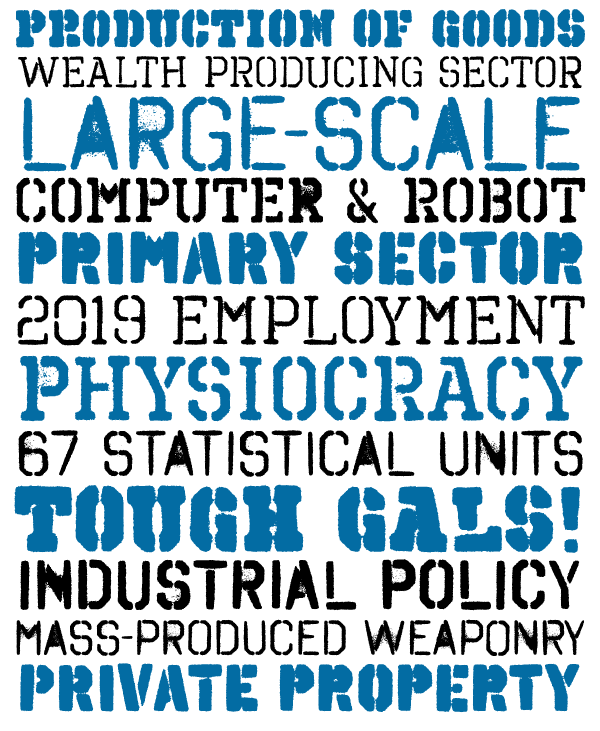
Octin Spraypaint is a tough headliner in 2 styles (sans & serif) & 3 weights: regular, bold & black. Octin Spraypaint is perfect for police, sports, prison, construction, school or military themes. Check out the rest of the Octin families: Octin Sports, Octin College, Octin Prison, Octin Stencil & Octin Vintage. This font includes a license that allows free commercial use: sometimes referred to as a desktop license. This allows you to install the font on a computer and use it to create posters, web graphics, game graphics, t-shirts, videos, signs, logos and more. Read the license agreement for details. If you'd like to embed this font in an app, ebook, on the web or anything that's not covered by the desktop license agreement, visit the link below. You'll find distributors who offer different types of licenses or you can contact me for help. http://typodermicfonts.com/the-octin-font-families/ This free font is part of a larger font family. Check out the rest of the family through the link above. |